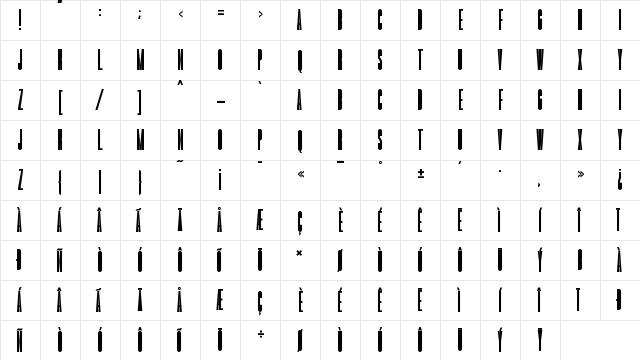
Romestone Regular
| Designer | Almarkhatype 2019-Abdul Malik Wisnu |
Design Context for Romestone Typeface
Romestone is a composed and adaptable typeface that performs quietly and consistently across a wide range of design contexts.